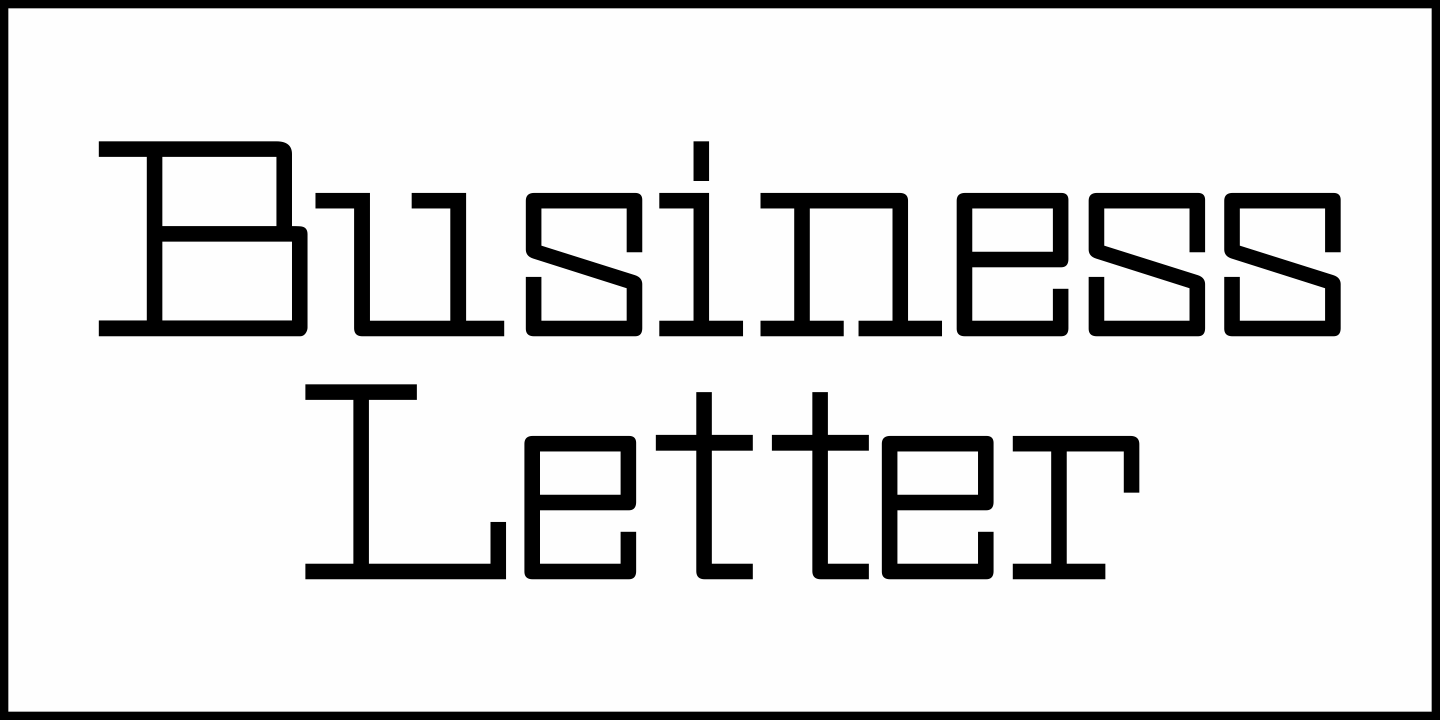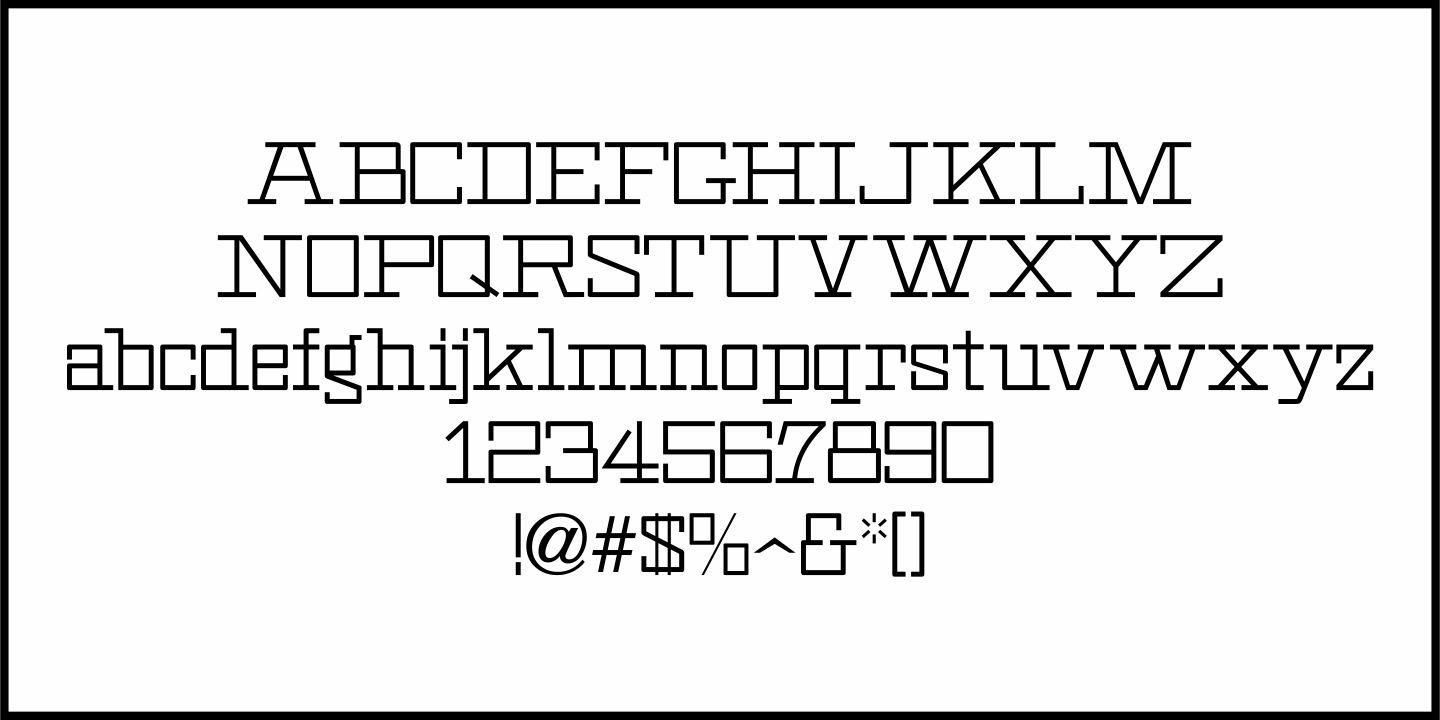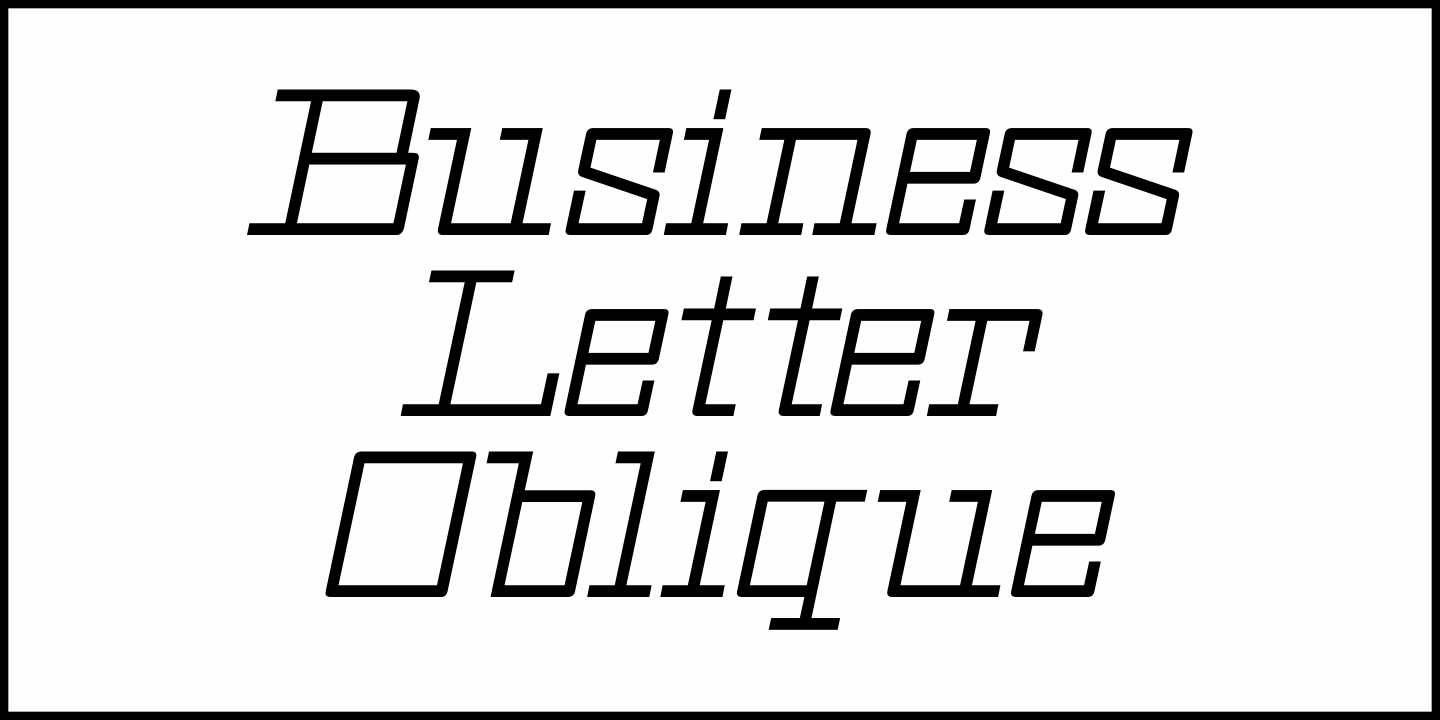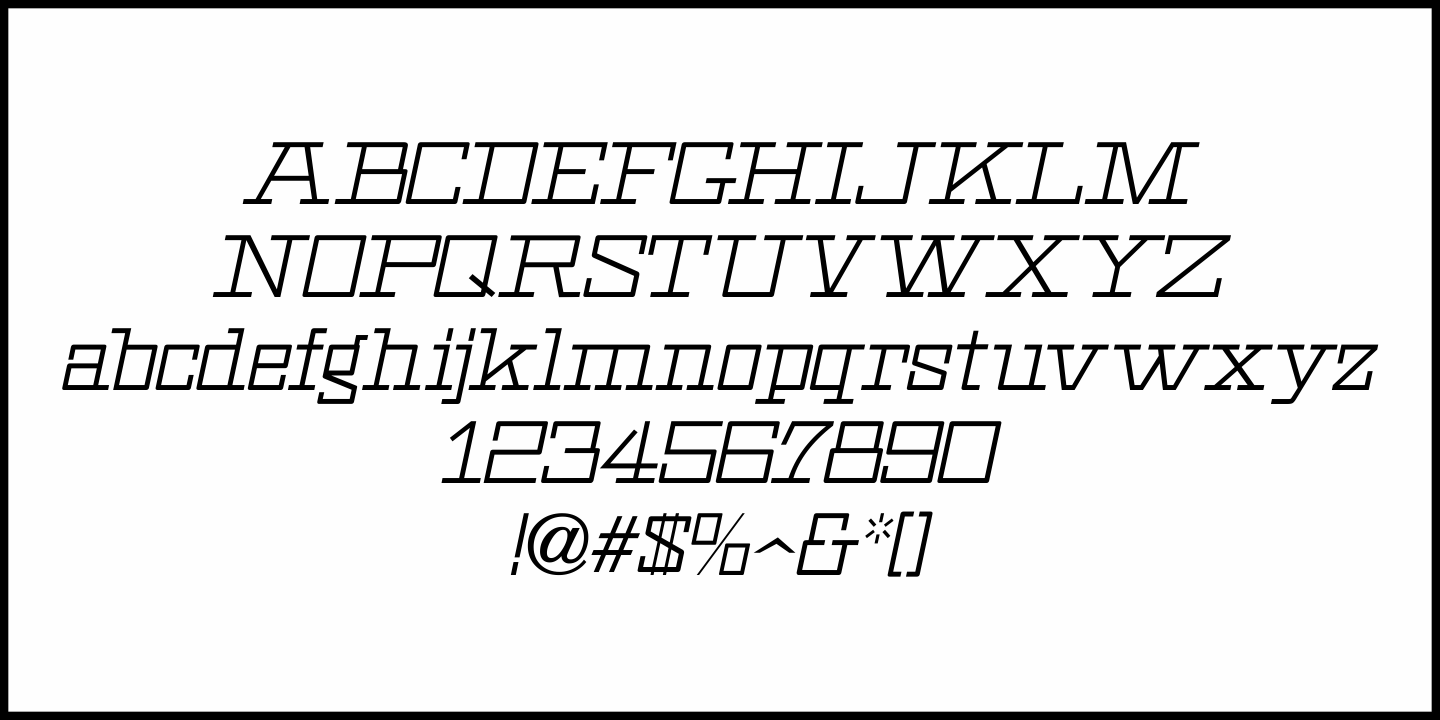
Business Letter
One of the text fonts showcased within the pages of the John Ryan Foundry (Baltimore, MD) specimen book from 1894 is a squared type face with rounded corners called “Geometric”.
The original design has been updated slightly by substituting straight lines for the inner corner curves to add a small contemporary touch to a classic alphabet from the 19th century.
Business Letter JNL is available in both regular and oblique versions.